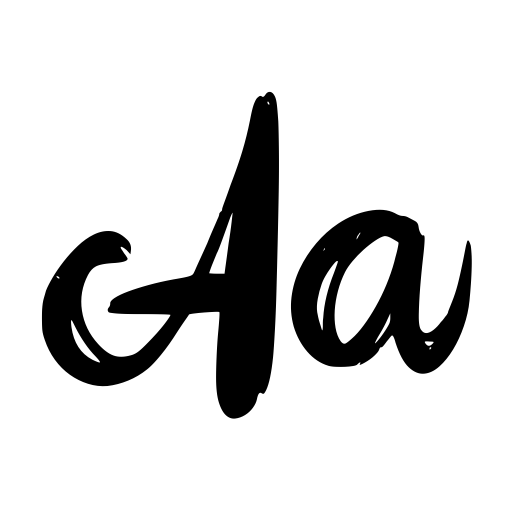
Befold is a bold, playful handwritten script font that features casual, rounded letterforms with a lively, brush-like texture. Its uppercase and lowercase styles carry an informal yet confident vibe, making it ideal for creative branding, eye-catching headlines, and fun packaging that seeks to convey friendliness and approachability. This font works best where a dynamic and energetic personality is needed to engage audiences with a fresh, handcrafted feel.
Befold Font